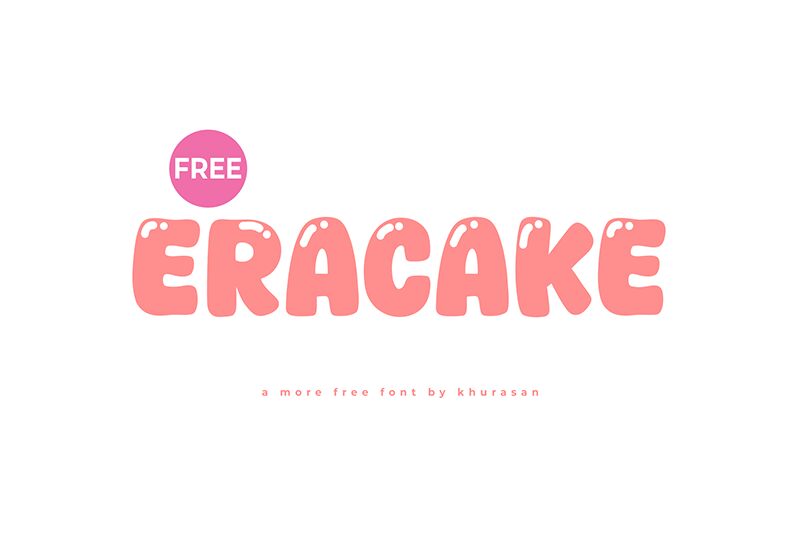
Eracake font by Khurasan is a fun bold display type that blurs the line between art and letterforms. It practically mirrors the look of handwriting styles that are often bubbly, rounded, and even soft. Also cartoonish and cheerful in nature, this font is also youthful and exceptionally playful. The perfect choice to add more character to simple texts.
Since its letters are easily readable, they would surely serve for content that has to be really clear to understand from afar. This includes labels, posters, advertisements, banners, signs… But also menu boards indoors or outdoors at restaurants or cafes.